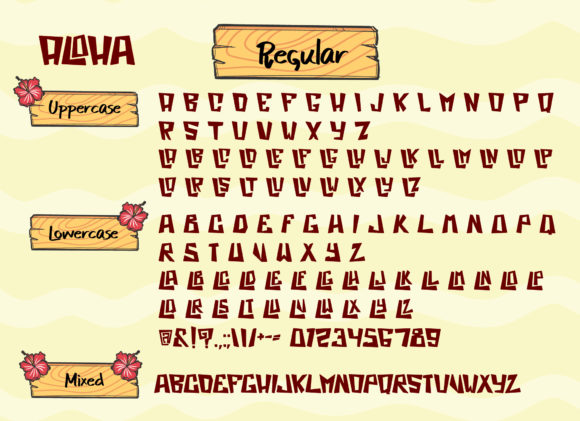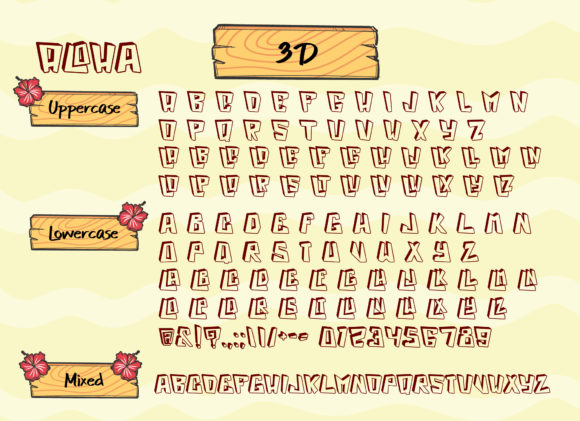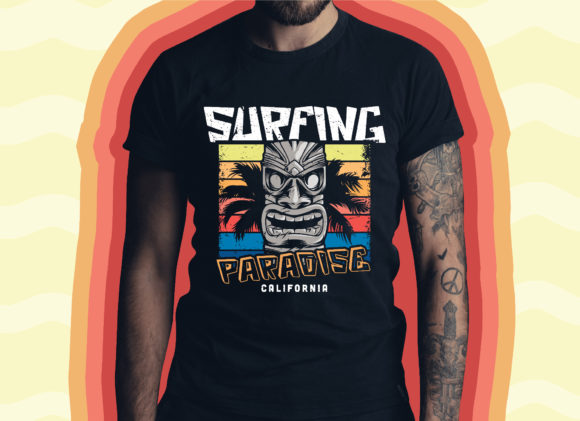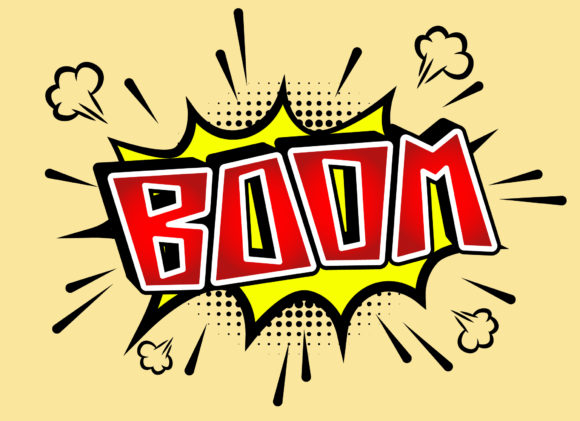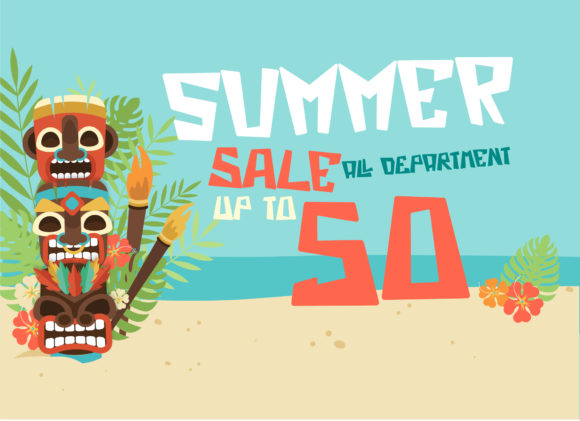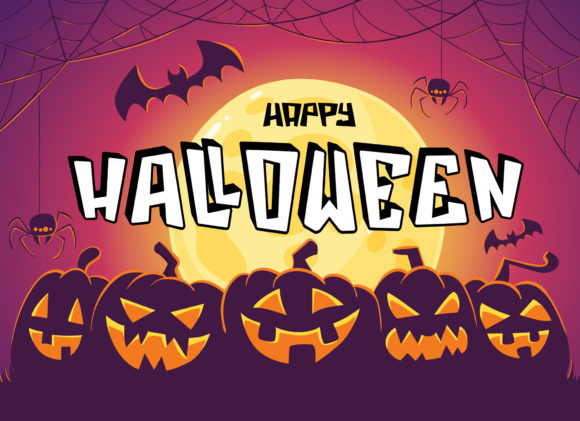
Aloha Font: The Perfect Addition to Your Creative Projects
Aloha Font is a bold and quirky display font that has been making waves in the design community. Its friendly feel makes it incredibly versatile, fitting a wide range of contexts. Whether you’re a designer, crafter, or simply someone who loves to dabble in creative projects, Aloha Font is a must-have addition to your toolkit.
The Characteristics of Aloha Font
Aloha Font is a display font that packs a punch. Its bold and quirky design makes it perfect for grabbing attention and adding a touch of personality to your projects. The font’s friendly feel is what sets it apart from other display fonts, making it suitable for a wide range of applications.
One of the standout features of Aloha Font is its versatility. It can be used in everything from signage and posters to digital graphics and social media posts. The font’s unique blend of playfulness and sophistication makes it an excellent choice for designers and crafters who want to add a touch of whimsy to their work.
Why Designers Love Aloha Font
Designers love Aloha Font for its ability to add a touch of personality to any project. Whether you’re working on a branding campaign, creating a website, or designing a marketing brochure, Aloha Font is the perfect choice. The font’s bold and quirky design makes it easy to grab attention and create a lasting impression.
Aloha Font is also a great choice for designers who want to create a cohesive visual identity. The font’s friendly feel makes it easy to pair with other fonts, allowing you to create a unique and recognizable brand aesthetic. Plus, the font’s versatility means you can use it across a wide range of applications, from digital graphics to print materials.
Why Crafters Love Aloha Font
Crafters love Aloha Font for its ability to add a touch of whimsy to their projects. Whether you’re creating handmade cards, scrapbooking, or working on a DIY craft project, Aloha Font is the perfect choice. The font’s bold and quirky design makes it easy to add a personal touch to your work, making it extra special.
Aloha Font is also a great choice for crafters who want to create custom signs, banners, or other decorative items. The font’s friendly feel makes it easy to read and understand, even from a distance. Plus, the font’s versatility means you can use it on a wide range of materials, from paper and fabric to wood and metal.
How to Use Aloha Font in Your Projects
- Pair Aloha Font with other fonts to create a unique and recognizable brand aesthetic.
- Use Aloha Font for headings and titles to add a touch of personality to your work.
- Experiment with different colors and textures to add depth and interest to your projects.
- Use Aloha Font to create custom signs, banners, or other decorative items.
Aloha Font is a bold and quirky display font that is perfect for designers and crafters who want to add a touch of personality to their projects. Its friendly feel makes it incredibly versatile, fitting a wide range of contexts. Whether you’re working on a branding campaign, creating a website, or simply want to add a personal touch to your handmade crafts, Aloha Font is a must-have addition to your toolkit.